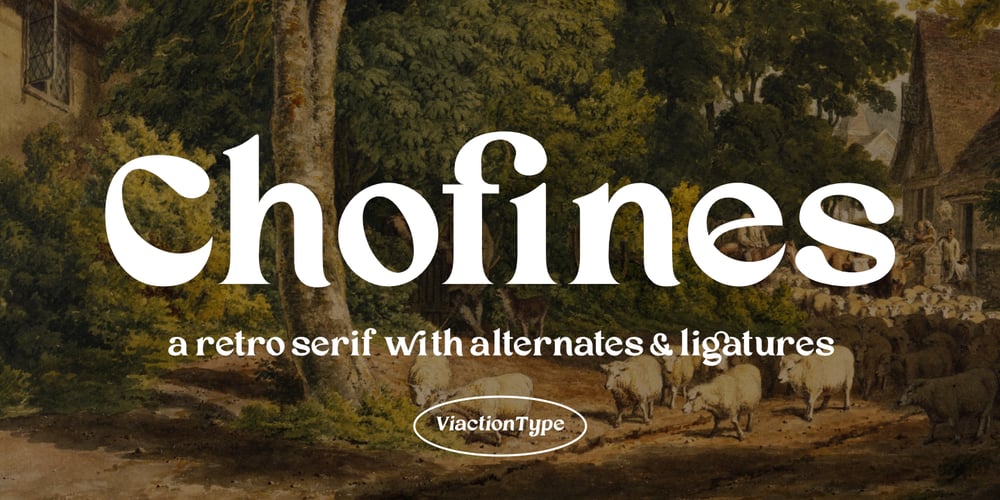
Chofines Font Family was designed by Lukman Hidayat and published by Viaction Type.Co. Chofines contains 2 styles and family package options. Chofines is a serif font with a retro style that is suitable for a variety of design purposes. Has a very soft curve, looks elegant and attractive when applied to the design. Equipped with opentype features such as Stylistic Alternate and rich Standard Ligature. It can be used in various countries because it supports Multilingual, adding to the maximum power of this font. You will get including:This font includes 2 styles, regular & oblique. It is very profitable to buy the Chofines font. Get it Now !I hope you enjoy it and thank you.Viaction Type